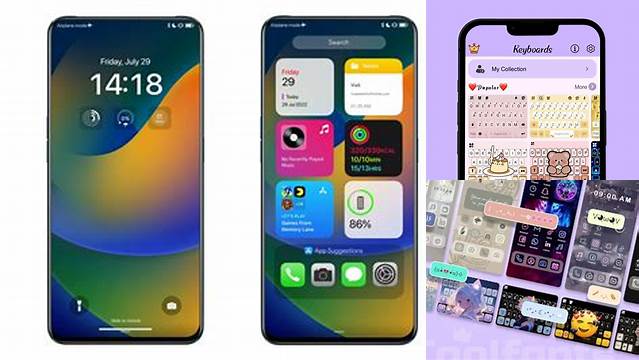
Cool Themes & Fonts: Level Up Your Phone!
Hey guys! Want to make your phone look totally awesome? Of course, you do! Let’s dive into the world of themes and fonts apps and how they can transform your mobile experience. Forget boring default settings, it’s time to personalize everything!
Unleash Your Creativity with Themes and Fonts
So, what's the deal with themes and fonts apps? Well, they're your secret weapon to customizing the look and feel of your smartphone. We're talking about changing everything from the overall color scheme to the way your text messages appear. It's all about expressing yourself and making your phone a reflection of your unique style. Imagine opening your phone and being greeted by a vibrant, personalized interface that just screams you. That’s the power of a good themes and fonts app! You can find apps that offer thousands of themes and font styles that you can pick. These apps are available both on Android and iOS, each offer a wide range of customization, enabling users to revamp their phone’s display according to their tastes. In the end, your phone will be as unique as you. So, let's jump into it and explore the endless opportunities!
H2: Understanding Themes Apps
What exactly is a theme app? Think of it as a complete makeover package for your phone's interface. These theme apps don't just change the wallpaper, they revamp the entire visual experience. Everything from the icons to the system menus gets a fresh new look. The best theme apps offer a wide variety of options, so you can find something that perfectly matches your personality. Choosing the right theme app involves considering the range of themes offered, customization options, compatibility with your device, and user reviews. After installing the app, browsing the available themes is usually the next step. Many apps categorize themes by style (e.g., minimalist, vibrant, dark) or color to help users easily find what they’re looking for. Previewing a theme before applying it is also essential to ensure it aligns with personal preferences. Some apps even allow users to customize themes further by changing icon styles, colors, and wallpapers.
H2: Exploring Font Apps
Font apps focus specifically on changing the typeface used throughout your phone's operating system. This includes everything from the text in your apps to the system fonts used in menus and notifications. A simple font change can dramatically alter the feel of your device. These apps are perfect for those who want to add a touch of elegance, quirkiness, or readability to their mobile experience. Font apps come with a large collection of fonts, from elegant serifs to modern sans-serifs, and even playful handwritten styles. Users can preview how each font looks on their device before applying it, ensuring readability and aesthetic appeal. The best font apps also provide options to adjust font size and spacing, catering to users with visual impairments or those who simply prefer a different text presentation. When choosing a font app, compatibility with the device and the range of customization options are key considerations. Some apps may require root access on Android devices, so it's important to check the app’s requirements before installation. Regular updates and a user-friendly interface are also beneficial for a seamless experience. Ultimately, the goal is to enhance readability and aesthetic appeal, making the phone more enjoyable to use.
H2: Benefits of Using Themes and Fonts Apps
Why should you even bother with themes and fonts apps? Well, the benefits are numerous! First and foremost, they allow you to personalize your phone and make it truly your own. This can be a huge boost to your overall enjoyment of your device. Second, they can improve readability and visual appeal. A well-chosen font can make reading on your phone much easier and more comfortable. Themes can also reduce eye strain by using darker color schemes or softer colors. Finally, themes and fonts apps can keep your phone feeling fresh and new. Changing up your theme or font is a great way to breathe new life into your device without having to buy a new phone. There are also functional advantages, such as improved readability, especially for users who spend a lot of time reading on their phones. Customized fonts and themes can reduce eye strain, making the device more comfortable to use for extended periods. Regular changes to the theme and font can also keep the user experience fresh and engaging, preventing the feeling of monotony that can come with using the same interface day after day. The ability to tailor the interface to specific needs or preferences makes using themes and fonts apps a valuable tool for enhancing the overall mobile experience.
H2: Finding the Right Themes App for You
Finding the perfect theme app can feel like searching for a needle in a haystack. With so many options available, where do you even start? First, consider your personal style. Are you drawn to minimalist designs, vibrant colors, or something more classic? Look for apps that offer a wide variety of themes in the styles you prefer. Also, read reviews! See what other users are saying about the app's performance, ease of use, and the quality of its themes. Compatibility is key; ensure the app is compatible with your phone model and operating system. Pay attention to details such as icon packs, wallpapers, and system UI changes to ensure they align with your preferences. Customization options are also important; some apps allow you to tweak themes further, such as changing colors or icon styles. By considering these factors, you can narrow down your options and find a theme app that truly enhances your device's visual appeal.
H2: Choosing the Perfect Font App
Just like with themes, there are tons of font apps to choose from. To pick the right one, consider what you're looking for in a font. Do you want something elegant, playful, or easy to read? Look for apps that offer a wide variety of font styles to suit your needs. Read reviews to gauge the app's performance, reliability, and the quality of its font selection. Compatibility is crucial; ensure the app works seamlessly with your phone model and operating system. Previewing fonts before applying them is a must to ensure readability and aesthetic appeal. Check if the app allows you to adjust font sizes and spacing, catering to your specific preferences. Regular updates and a user-friendly interface are also important for a smooth and enjoyable experience. By considering these aspects, you can choose a font app that enhances the readability and visual appeal of your device.
H2: Top Theme Apps for Android
Android users, you're in luck! There are some fantastic theme apps available on the Google Play Store. Some popular options include Nova Launcher, which offers extensive customization options, and Substratum, a theme engine that allows you to apply custom themes to rooted devices. Other notable mentions include Action Launcher and ADW Launcher, both of which provide unique features and a wide range of themes to choose from. Each launcher offers a unique set of features and customization options, allowing you to tailor your Android experience to your exact preferences. With so many great theme apps available, you're sure to find one that perfectly matches your style and enhances your Android experience.
H2: Best Font Apps for Android
When it comes to font apps on Android, there are several excellent choices to consider. iFont is a popular option, offering a vast library of fonts and easy installation. HiFont is another great choice, with a wide variety of stylish fonts and a user-friendly interface. FontFix is also worth checking out, as it allows you to change system fonts on rooted devices. Each of these apps provides a unique set of features, ensuring you can find the perfect font to suit your personal taste and enhance your device's readability. With so many great font apps available, you can easily transform the look and feel of your Android device.
H2: Theme Apps for iOS: What Are Your Options?
iOS users might find theming a little more restricted compared to Android, but don't worry! There are still ways to customize your device. While full system-wide themes apps are rare due to Apple's restrictions, you can still find apps that offer custom icon packs and wallpapers to personalize your home screen. Apps like Moloko and ThemeKit provide icon packs and widgets to customize your home screen. These options, while not as extensive as Android themes, still allow you to add a personal touch to your iOS device. While iOS customization options are more limited, creative use of icon packs and wallpapers can still significantly enhance the visual appeal of your device.
So there you have it! A deep dive into the awesome world of themes and fonts apps. Now go forth and make your phone totally you! Have fun experimenting and finding the perfect look for your device. Peace out!